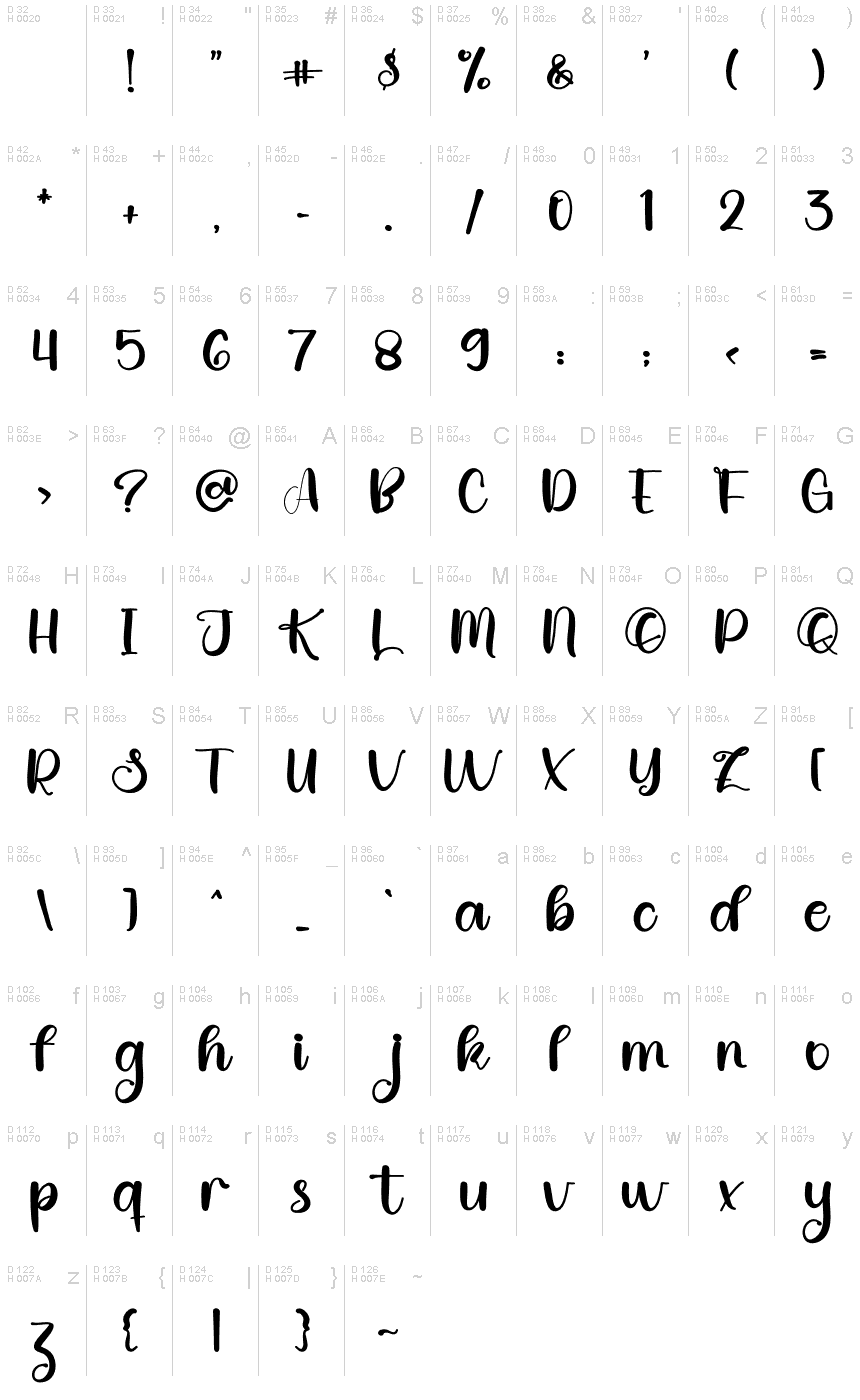
Single
Single, designed by Inermedia Studio, is a stunning handwritten font that exudes class and refinement. With its elegant and modern style, this script font is perfect for a wide range of projects.
Use it to create eye-catching logos that leave a lasting impression on your audience. Make your branding materials stand out with the sophisticated charm of Single. It's also an excellent choice for invitations and stationery, adding a touch of elegance to any event. Whether you're designing wedding materials or crafting social media posts, Single will bring a touch of beauty and sophistication to your creations.